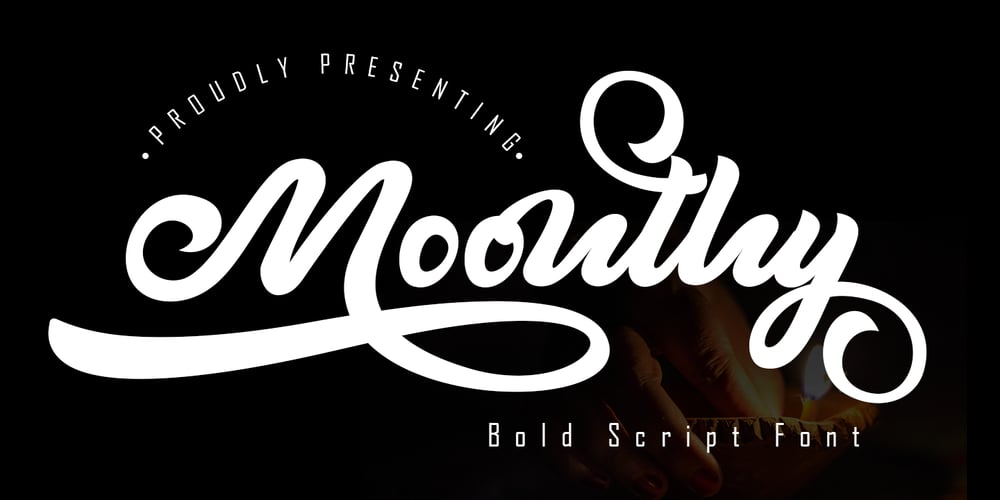
Moonthy Font Family was designed by Irfan Mahmudin and published by Skiiller Studio. Moonthy contains 1 styles and family package options. Moonthy is a beautiful and elegant script font. It features more than 150 alternates that are PUA encoded. This gorgeous script is widely suitable for graphic designs and any other creative projects!